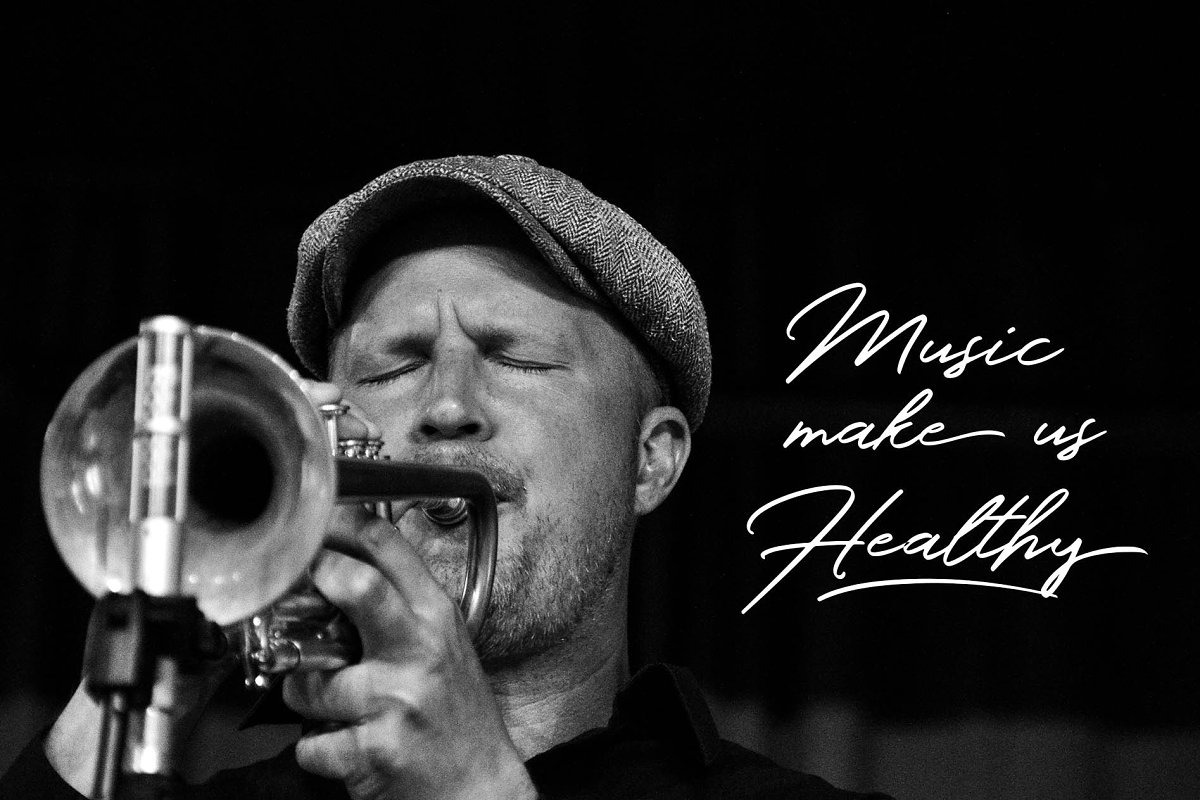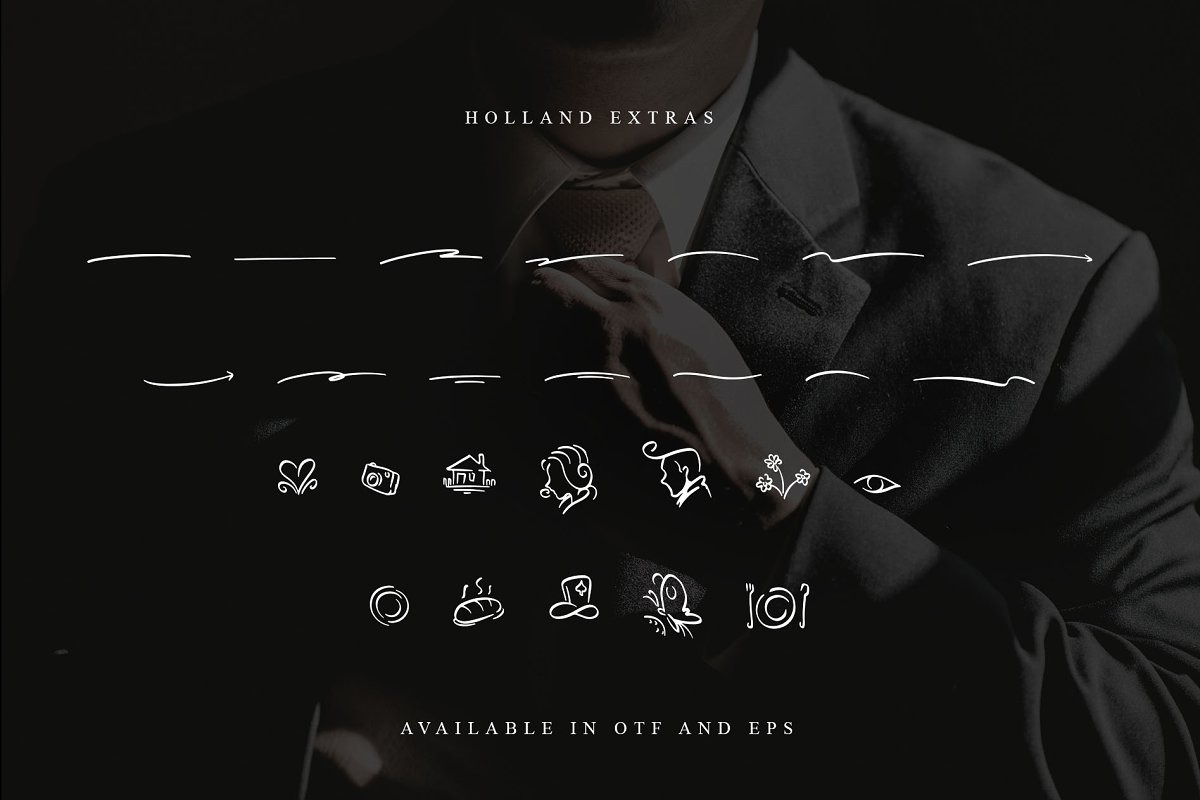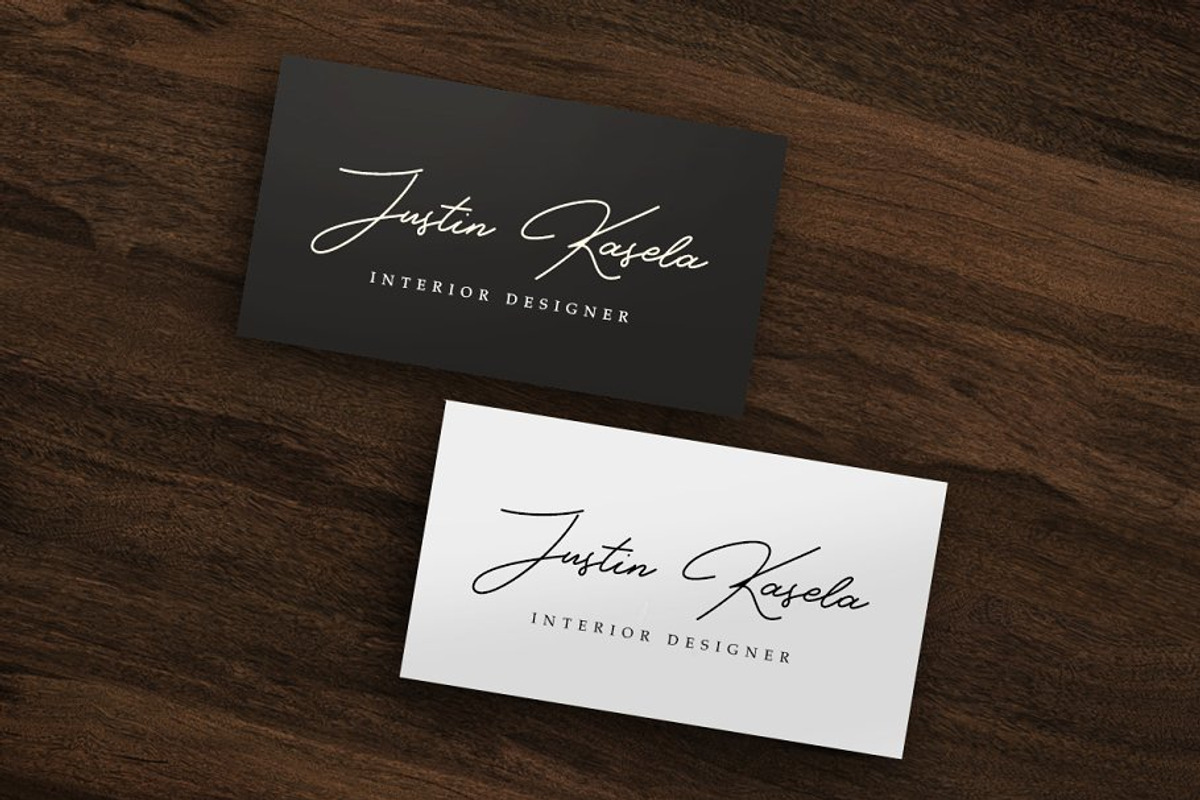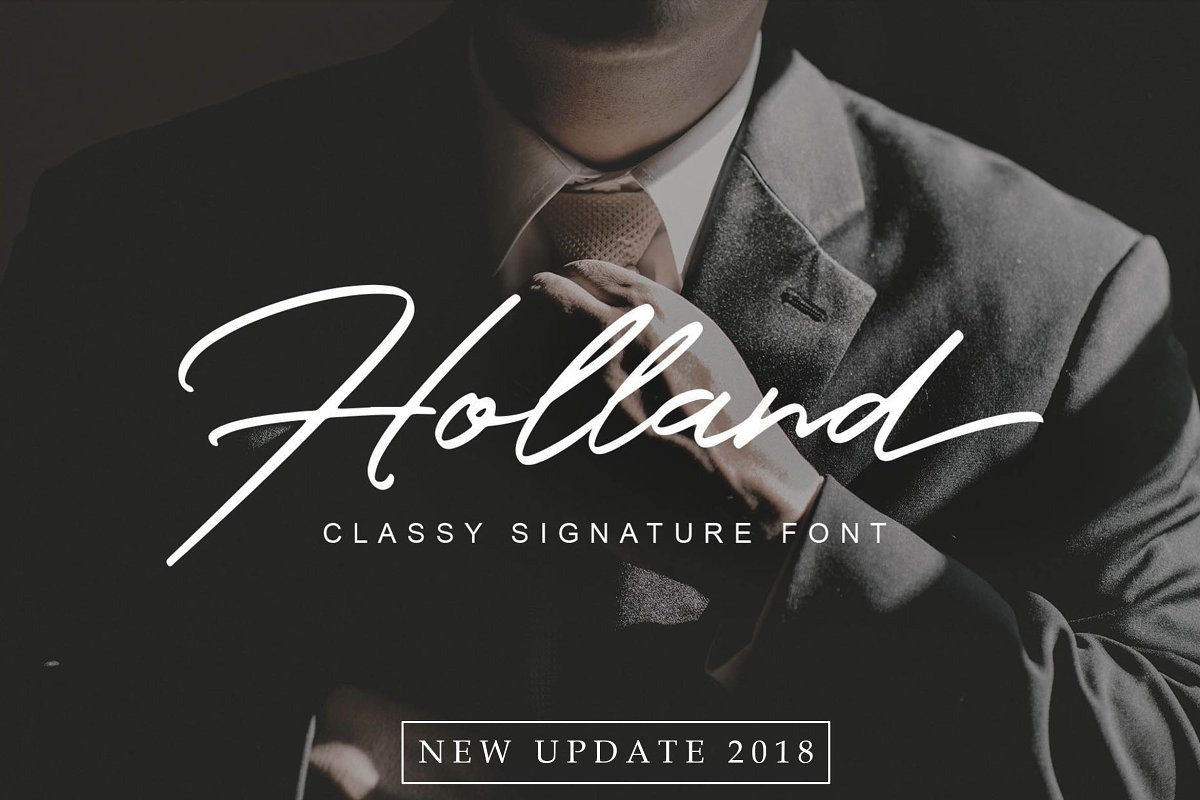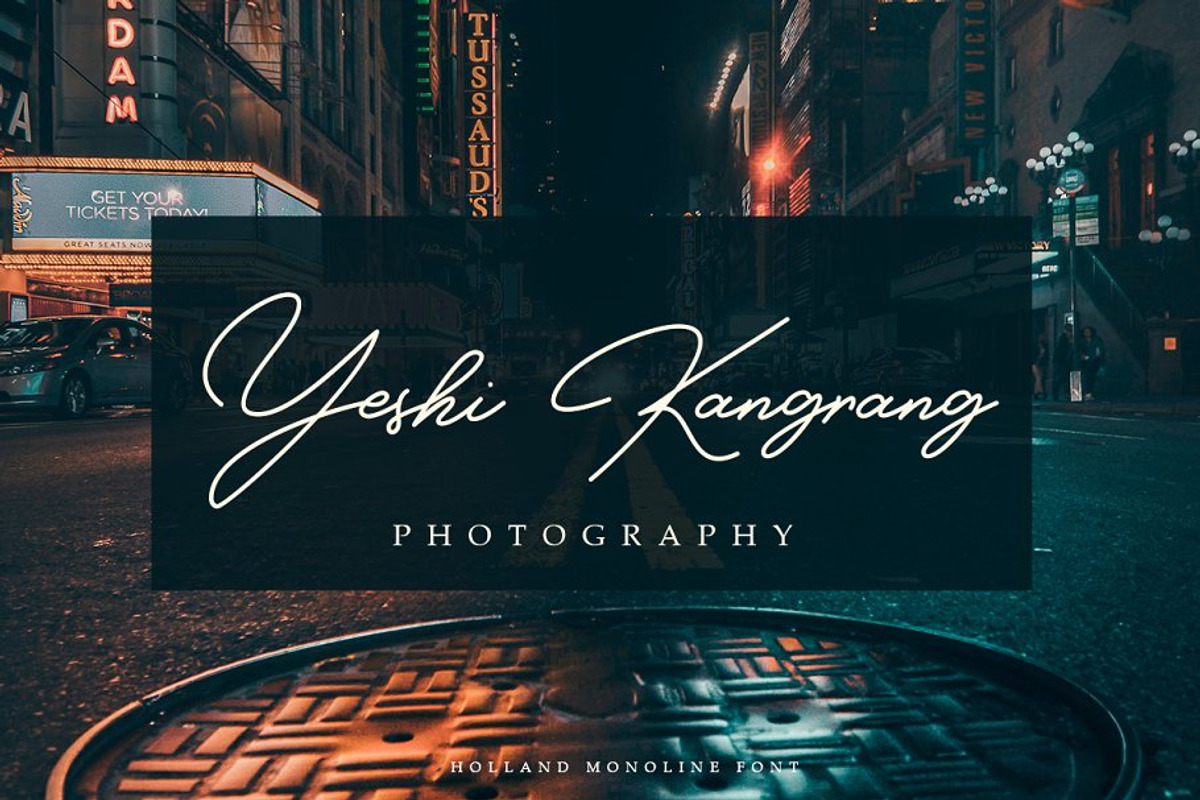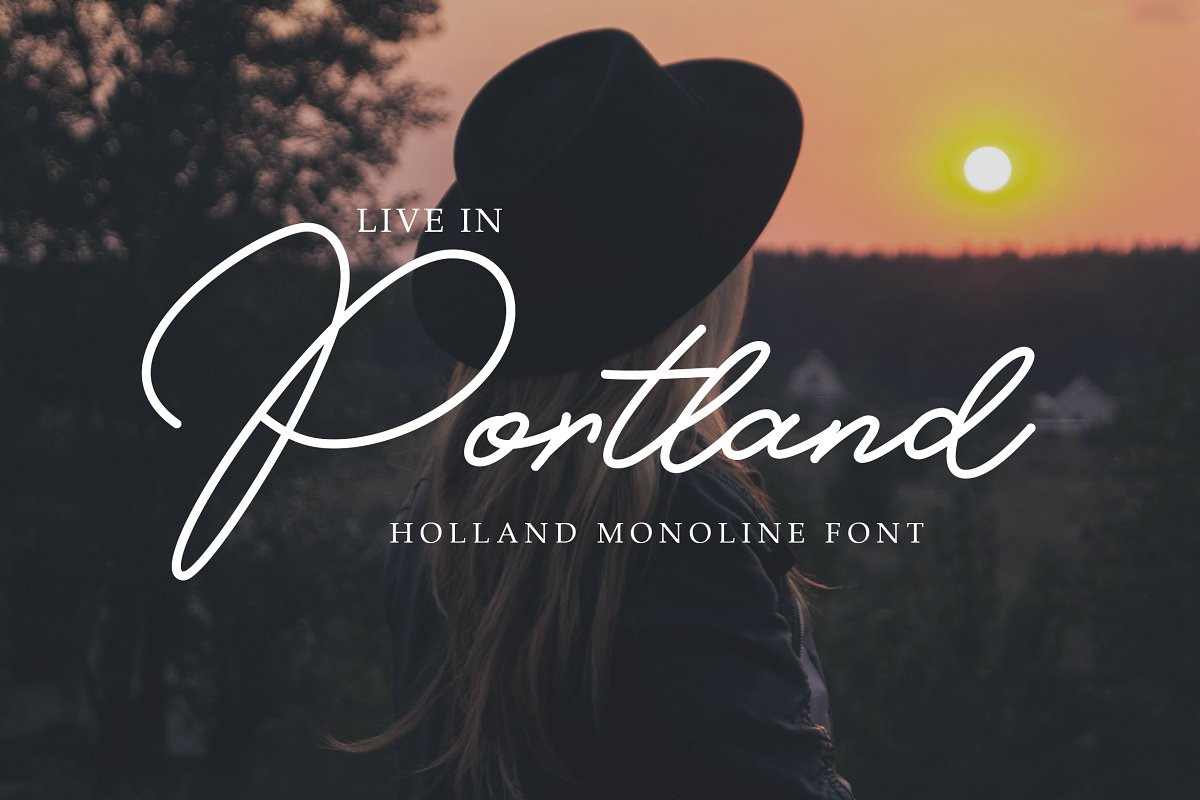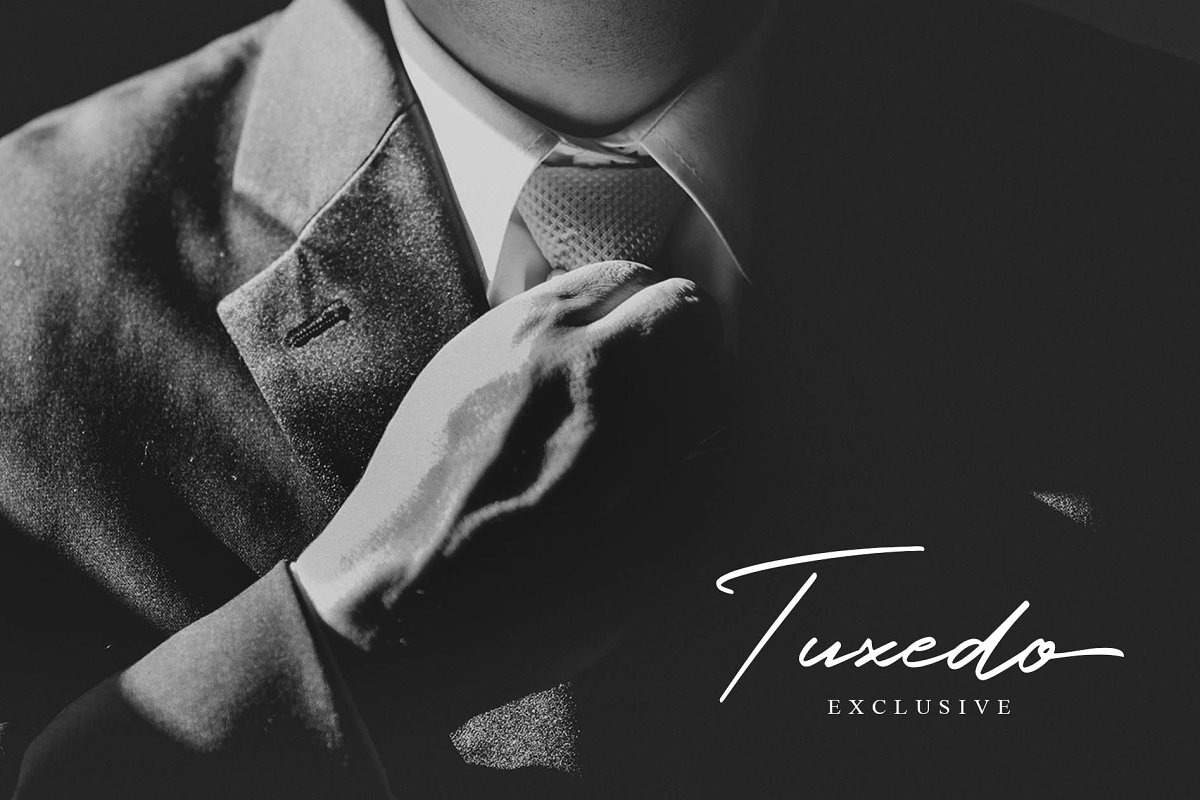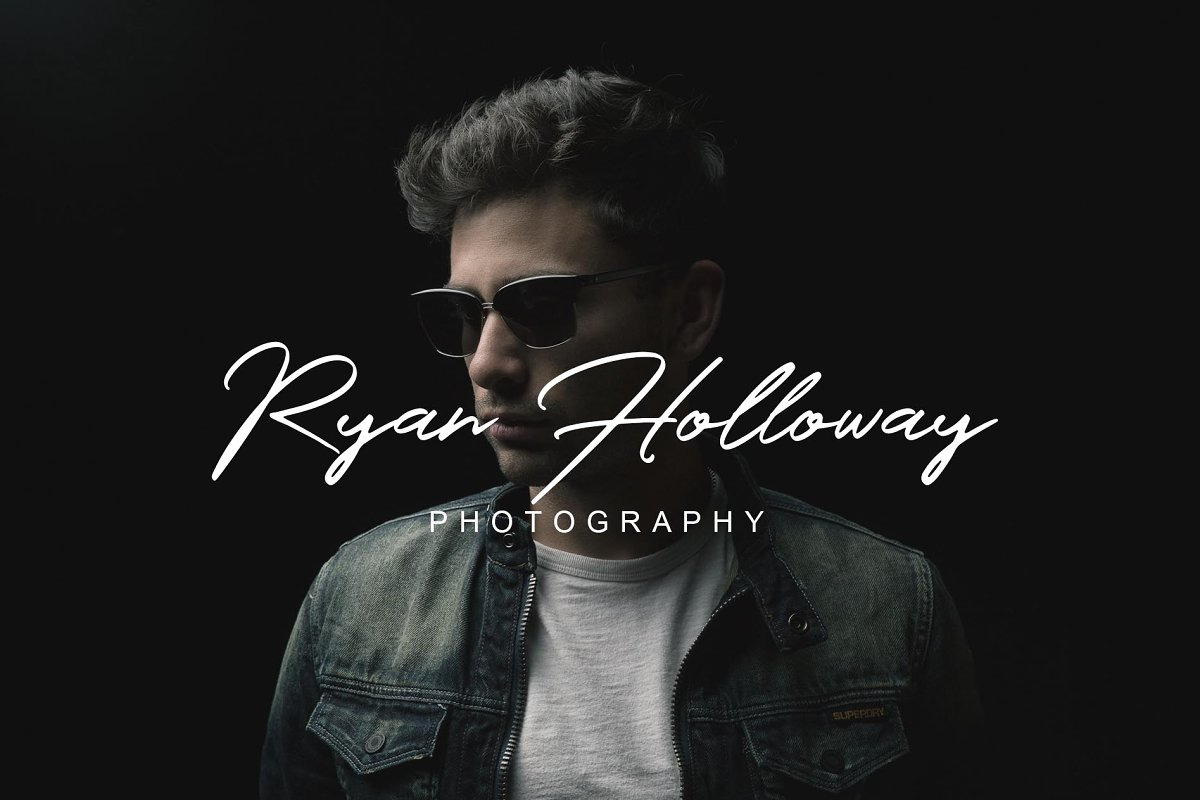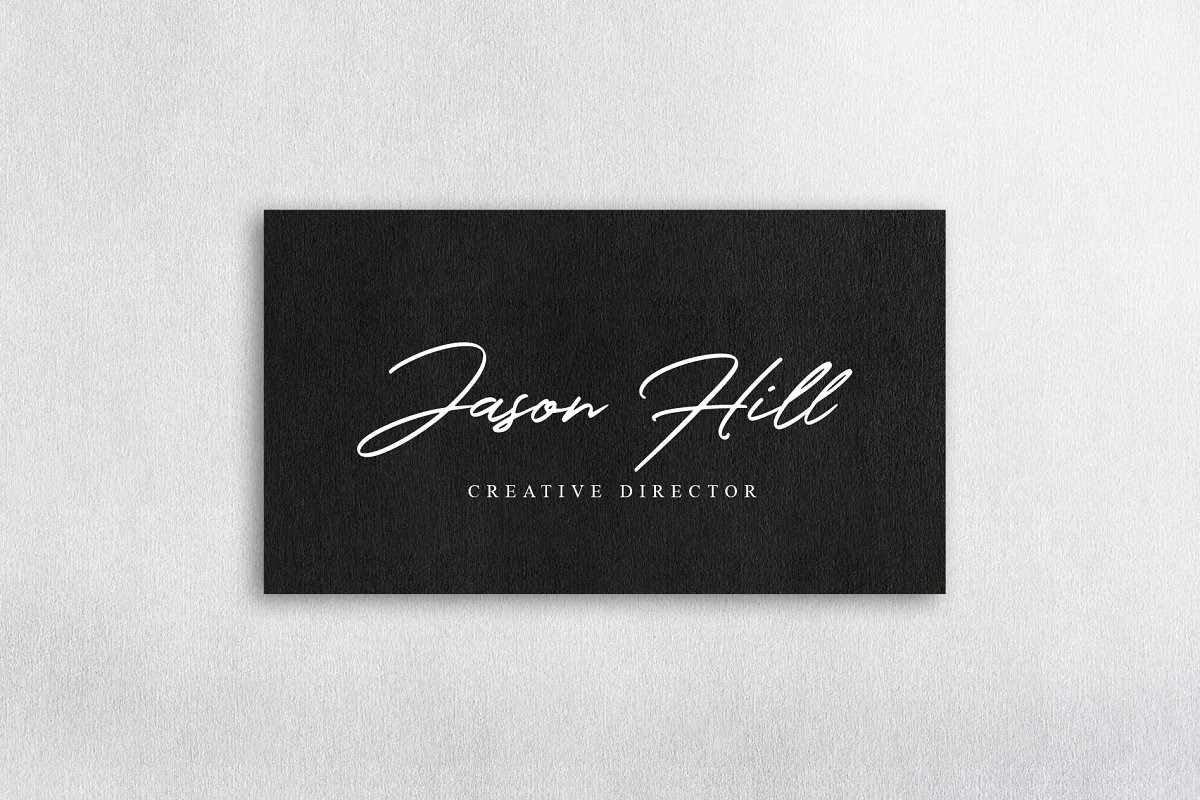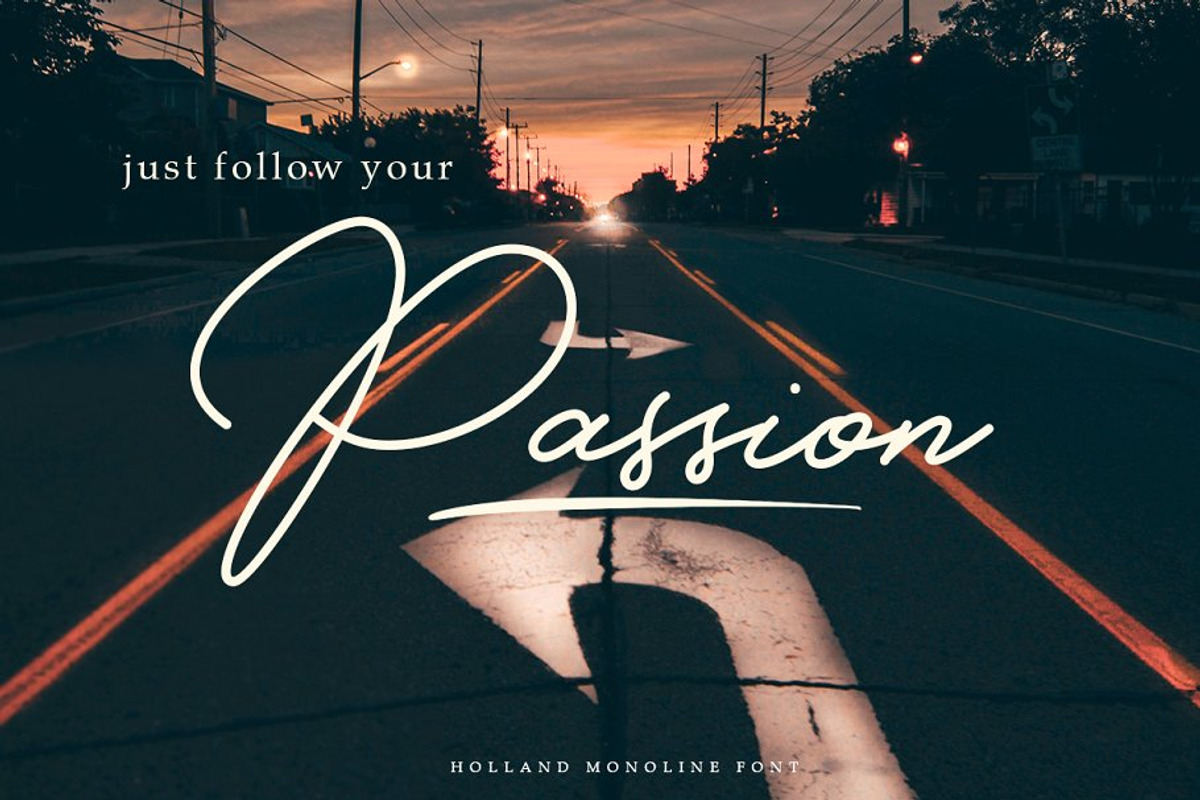
Holland Elegant Font Collection
NEW UPDATE : we add one new font, so now Holland Contains 4 fonts.
Holland Script is modern script that perfect for photography, signature, branding. It is so beautiful and classy, simple but strong. Holland is one of most wanted font 2017-2018.
What’s include (holland Script Old):
- Initial form (titl) for lowercase
- Swash (swsh) for Ending
What’s include (New Holland Monoline):
- Standar Ligature